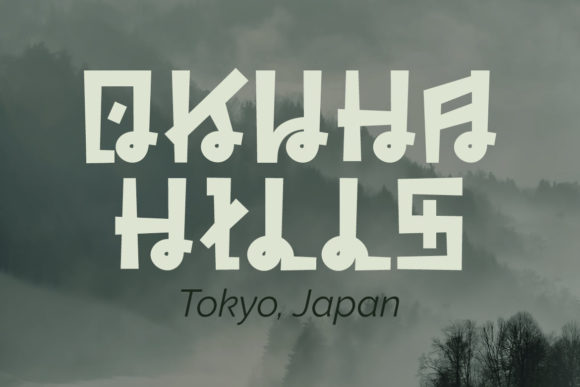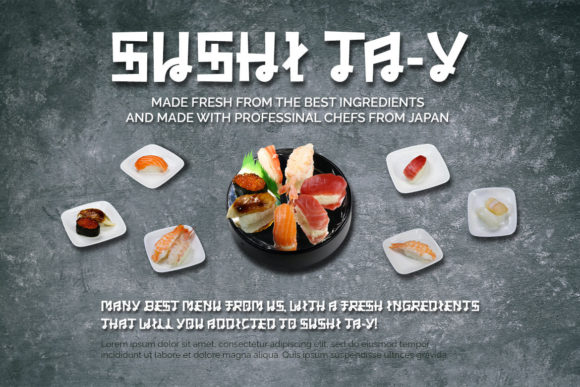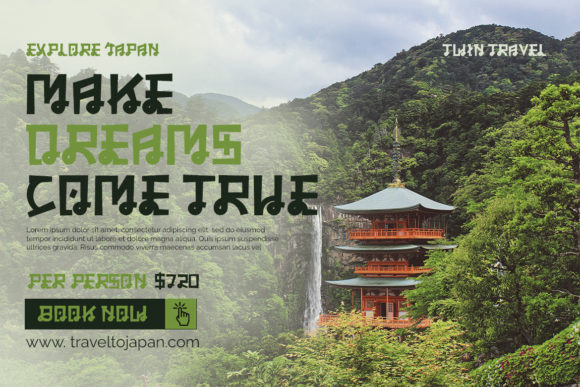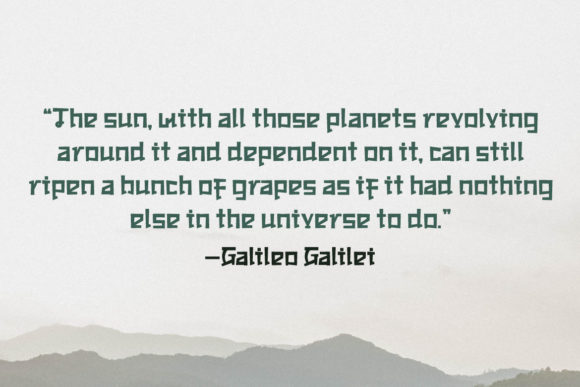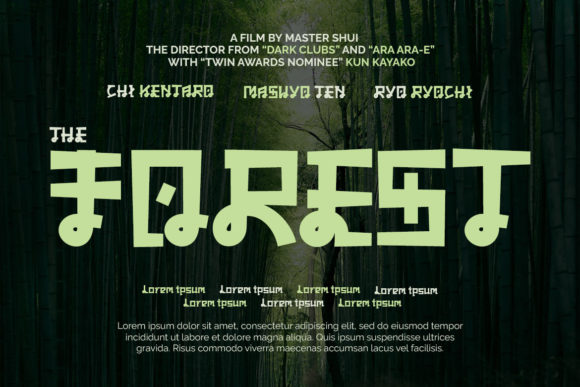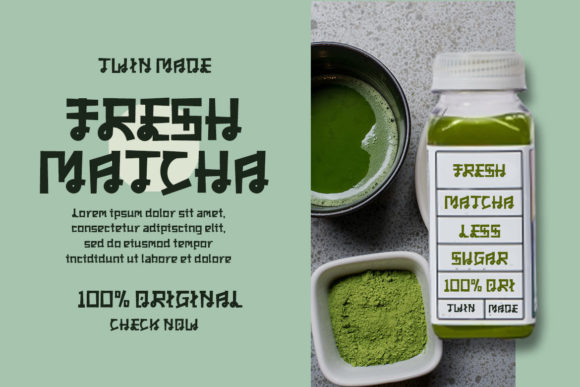
Introduction to Qoroshi Font
Have you ever stumbled upon a design that sparks pure creativity? A font that transports you to a world of artistic expression? For designers, it’s a moment of pure joy – the moment when the perfect font comes along and elevates your project to new heights. For me, that moment came when I discovered the enchanting Qoroshi Font.
Qoroshi Font is an exquisite, Japanese-inspired display font that will leave a lasting impression on your audience. Its unique character and elegant lines make it perfect for adding a touch of sophistication to any design project. Whether you’re working on a food menu, poster, flyer, or print, Qoroshi Font is sure to shine.
Key Features of Qoroshi Font
- High-quality, unique design for creative projects with a transparent background, allowing for easy customization and versatility.
- Supports various languages, including English, making it a great option for international design projects.
- Features a clean and modern aesthetic, perfect for a wide range of creative projects, from logos and branding to digital art and typography.
Honest Review: Qoroshi Font
I recently had the chance to work with the Qoroshi Font, and I must say it’s been a game-changer for my creative projects. This high-quality font is perfect for designers looking to add a touch of elegance to their designs.
What works well: ✨ The Qoroshi Font has a transparent background, making it incredibly easy to use and manipulate in various design applications. The font itself is highly customizable, allowing me to adjust the size, color, and style to fit my specific needs. I’ve used it in several design projects, and it’s always impressed my clients with its sophistication and professionalism.
Limitations: ⚠️ While the Qoroshi Font is an excellent choice for most design projects, it may not be suitable for certain applications, such as display fonts or bold typography. Additionally, some users may find the font’s high-quality design to be a bit too elaborate for simple text-based projects.
Overall, I’m thoroughly impressed with the Qoroshi Font, and I highly recommend it to any designer looking for a high-quality, versatile font to add to their design arsenal.
- Customizable and versatile
- Excellent choice for creative projects
Tips for Getting the Most Out of the Qoroshi Font
For the best results, use the Qoroshi Font with a transparent background to create a high-quality design effect. Experiment with different font sizes and styles to add creativity to your project.
The Qoroshi Font is ideal for creative projects such as logos, graphics, and infographics. It’s also perfect for use in social media posts, blog articles, and presentations.
Alternatives to Qoroshi Font
Great Vibes is a high-quality, elegant script font suitable for creative projects that require a sophisticated and modern touch. It’s perfect for wedding invitations, branding, and other design projects where a premium feel is essential.
Compared to Qoroshi Font, Great Vibes offers a more refined and polished look, making it ideal for projects that require a high level of sophistication. While Qoroshi Font has a more playful and handwritten feel, Great Vibes is more suited for formal and elegant designs.